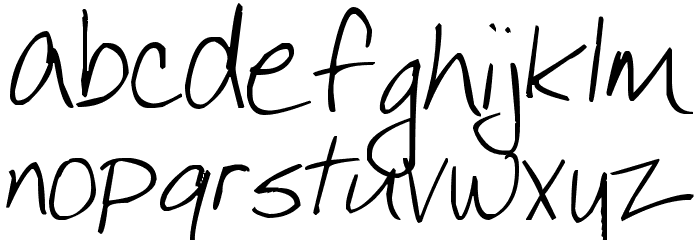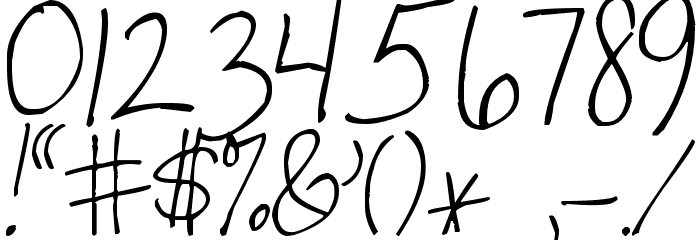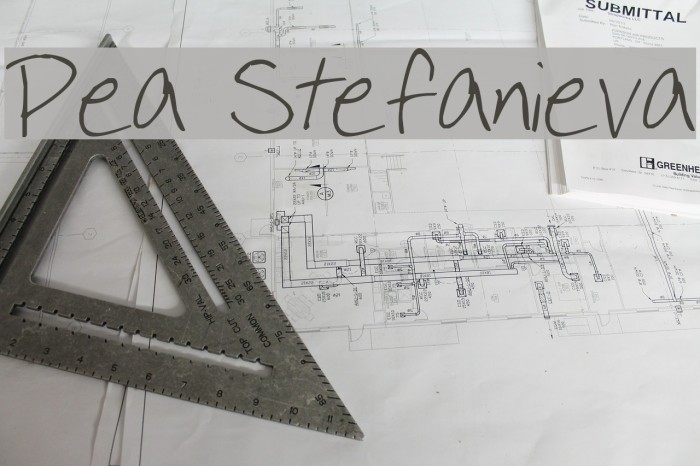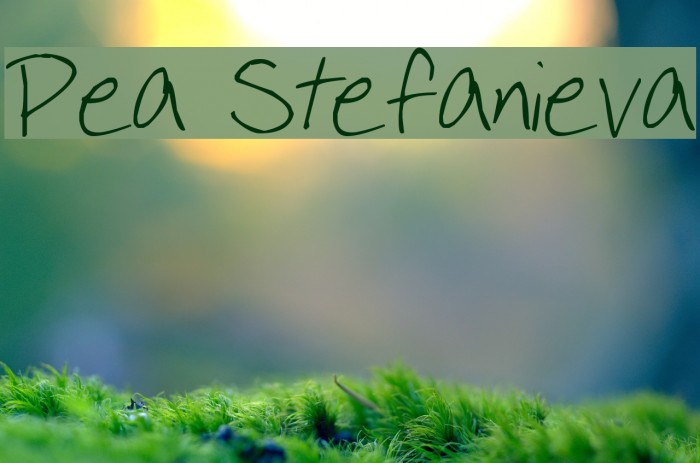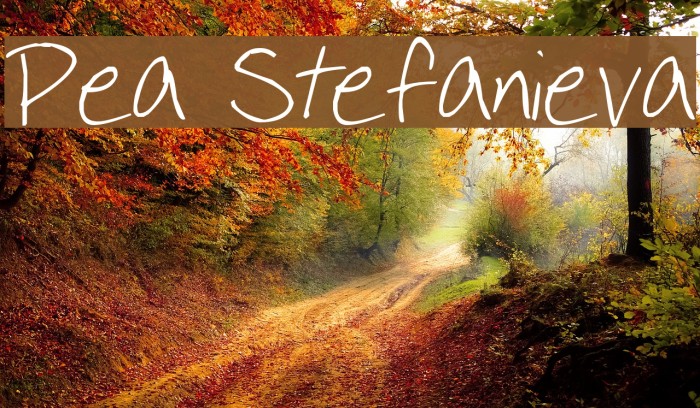
Pea Stefanieva Font
This font embodies a casual, handwritten style with a playful and informal appearance. The letters are slightly irregular, mimicking the natural flow of handwriting. The uppercase letters are bold and prominent, while the lowercase letters maintain a consistent, flowing style. The numbers are clear and legible, complementing the overall aesthetic. Special characters are integrated seamlessly, maintaining the font's cohesive look. The strokes are moderately thick, providing a balanced contrast that enhances readability without sacrificing the handwritten charm.
A playful, handwritten font with a casual and informal style.
- Font: Pea Stefanieva
- Proposed Projects: Ideal for personal notes, invitations, greeting cards, and creative projects that require a personal touch.
- Category: Handwritten
- Overall Style: Casual
- Use Case: Logos, Invitations, Greeting cards